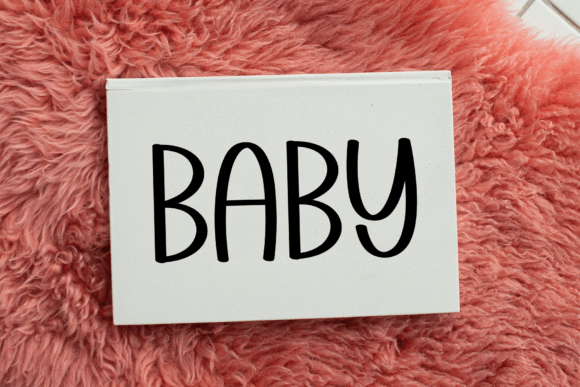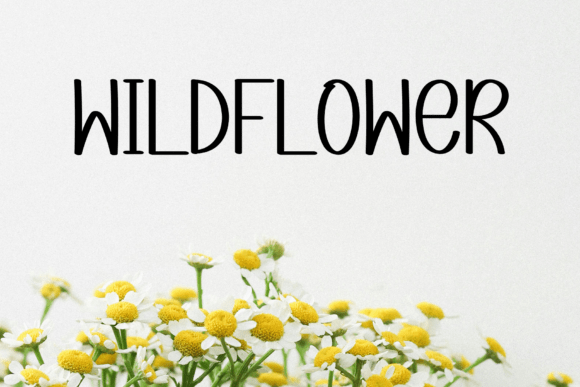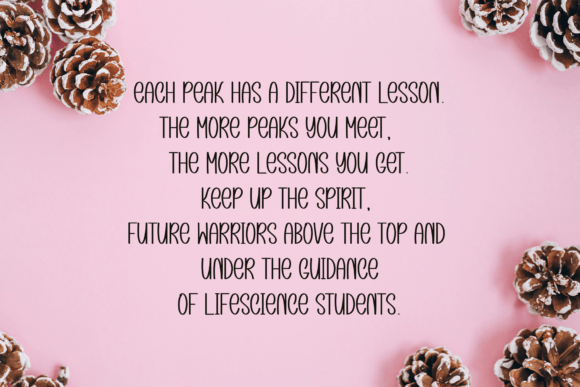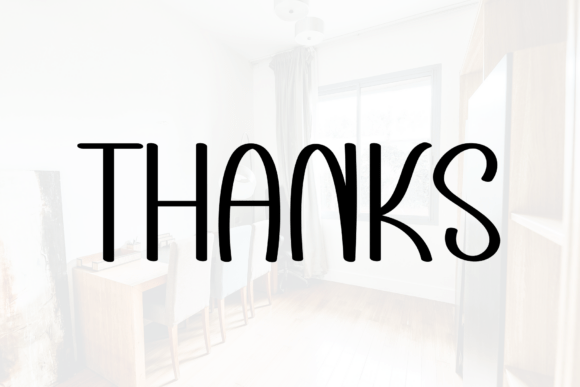
Introduction to Journal Anytime Font
As I sat at my desk, staring at a blank page, I knew exactly what I needed – a spark of creativity to get my design juices flowing. That’s when I stumbled upon the Journal Anytime Font, and I was instantly captivated by its warm, handwritten charm. Its smooth strokes and organic lines transported me to a cozy coffee shop, where the only thing I had to worry about was what to write next.
The Journal Anytime Font is more than just a pretty face – it’s a valuable design resource that can elevate your creative project to new heights. With its high-quality design and transparent background, you can use it for everything from branding to social media graphics, and even invitations. And the best part? It’s available for free download, making it an accessible addition to any designer’s toolkit.
Whether you’re a seasoned pro or just starting out, the Journal Anytime Font is a must-have for any design project. Its versatility and charm make it the perfect companion for your next creative venture, and I’m excited to share more about what makes it so special.
Key Features of Journal Anytime Font
- High-quality, unique font design ideal for creative projects
- Comes with a transparent background, allowing for easy layering and customization
- Includes a range of sizes and resolutions to suit various design needs
- Perfect for use in digital and print media, including journals, magazines, and books
- Can be easily scaled and manipulated to fit specific design requirements
Honest Review: Journal Anytime Font
I recently came across the Journal Anytime Font, and I was excited to give it a try for my next creative project. The font is available as a free download, which is always a bonus for designers looking for high-quality design resources.
What works well with this font is its versatility and range of styles. ✨ It includes a variety of weights and textures, making it perfect for creating unique and engaging content. The font also has a transparent background, which allows for seamless integration into any design.
- Wide range of styles and weights
- Includes a transparent background for easy integration
However, I did notice a few limitations with this font. ⚠️ The character set is not as extensive as I would have liked, and some of the characters can appear a bit awkward or disconnected. Additionally, the font may not be suitable for use in smaller sizes, as the details can become blurry.
Overall, I would give the Journal Anytime Font a solid 4 out of 5 stars. While it has its limitations, it’s still a great resource for designers looking for a high-quality, free font. With a bit more development, I think this font could be a game-changer for creative projects.
Tips for Getting the Most Out of Journal Anytime Font
To get the most out of the Journal Anytime Font, experiment with different font sizes, colors, and styles to create a unique look. You can also use the font in combination with other design elements to create a visually appealing design.
The Journal Anytime Font is ideal for use in a variety of creative projects, including digital art, graphic design, and typography-based designs. Its high-quality design and transparent background make it a versatile design resource that can be used in many different contexts.